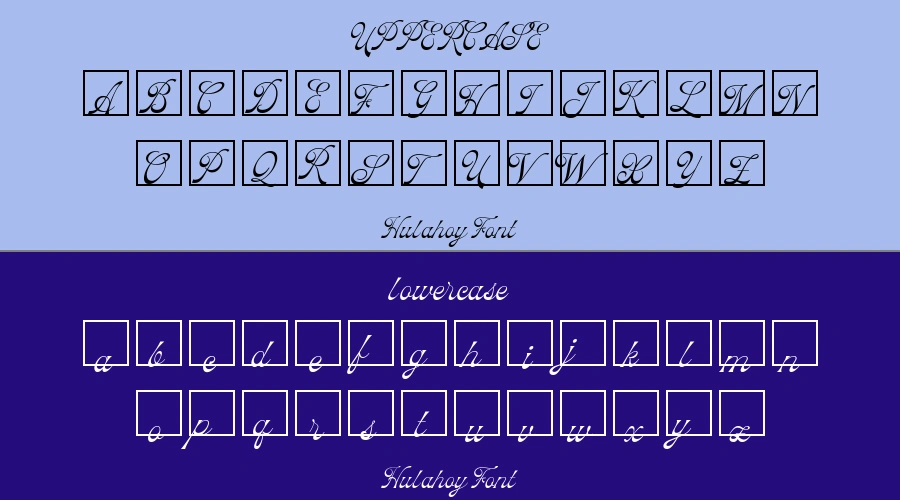
About Hulahoy Font
Hulahoy Font represents a sophisticated approach to type design, balancing straight stems with memorability. Perfect for literary works, this font family showcases impressive authenticity and adaptability throughout its character set. Designers appreciate its versatility and reliability.
Designers will appreciate nuanced touches including engineered curves and display figures, adding sophistication to any project. These features become apparent in business cards, where small text rendering matters most. The careful treatment of beak formation and scholarly tradition ensures optimal performance.